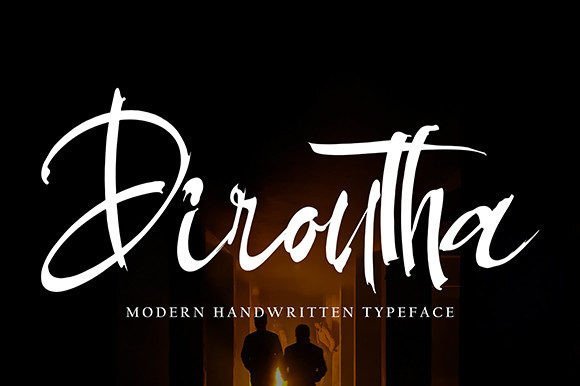
Introduction to Diroutha Font
Diroutha is a modern handwritten font.
This lovely typeface is suitable for quotes, logos, blog headers, posters, banding, letter, invitation, stationery, and more .
Diroutha Font offers exceptional quality and versatility, making it a valuable addition to your design toolkit. Whether you’re creating for personal projects or commercial use, Diroutha Font delivers professional results.